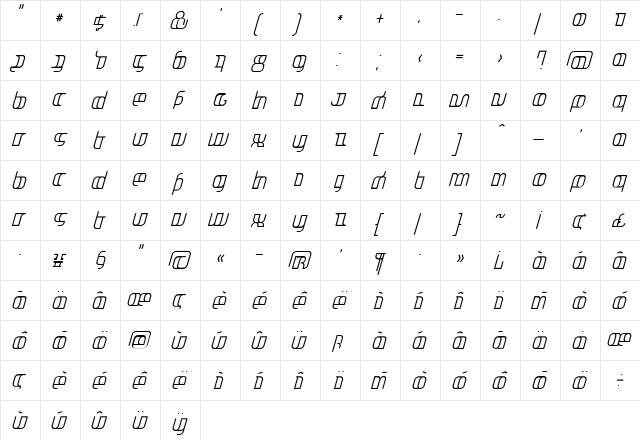
Jakone CondensedItalic
Design Context for Jakone Typeface
Jakone is a composed and adaptable typeface that performs quietly and consistently across a wide range of design contexts. The slanted form adds forward momentum and visual energy. The condensed width makes it efficient for tight spaces without sacrificing legibility.
Pro Tip: Try Jakone for annotation and caption copy alongside an upright companion — the contrast in angle creates a dynamic but ordered typographic system.